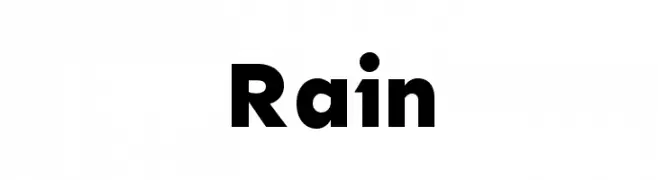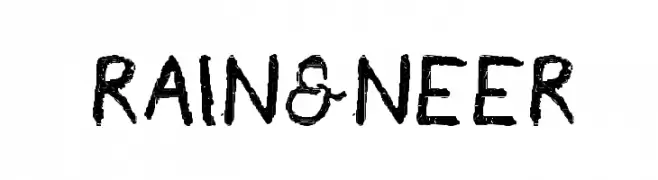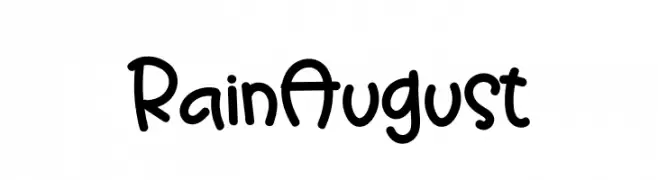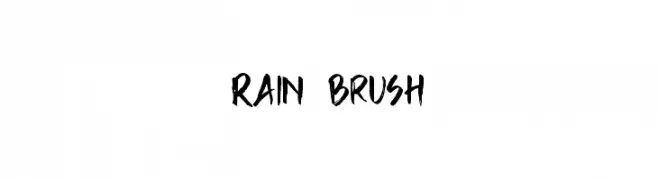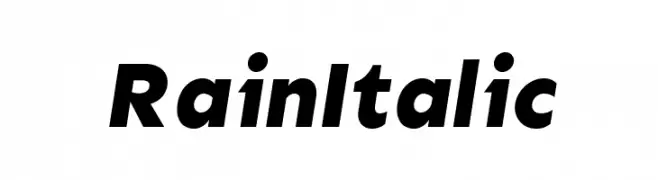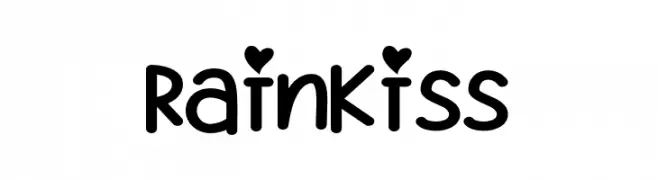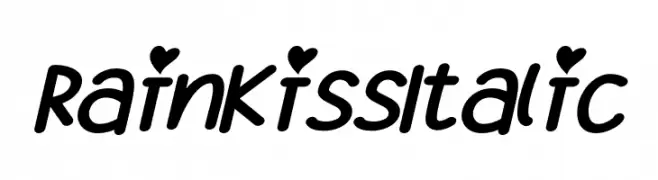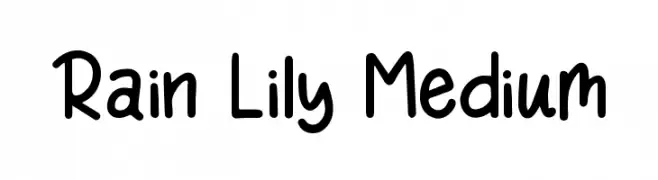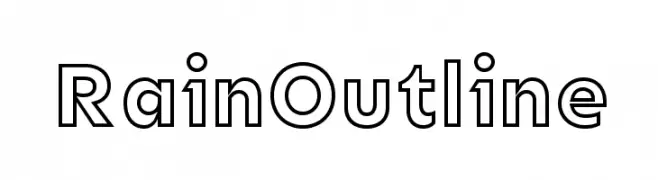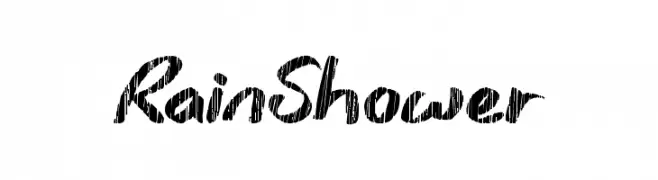
A bold, geometric font with strong, uniform letterforms.
A classic serif font with elegant, rounded terminals and high contrast strokes.
A bold, hand-drawn font with a textured, rustic appearance.
A playful, hand-drawn font with rounded, bold characters.
A bold, brush-style font with dynamic and expressive strokes.
A playful and whimsical script font with a handwritten style.
A playful and whimsical script font with smooth, flowing curves.
A playful and elegant script font with flowing, cursive design.
A bold, italic font with strong, slanted letterforms for a dynamic and modern look.
A playful, rounded font with whimsical, bubbly characters.
A playful, italic font with smooth curves and whimsical details.
A bold, cursive font with elegant loops and a handwritten style.
Playful, rounded sans-serif with a handwritten style.
A modern, geometric sans-serif font with an outline style for bold visual impact.
A modern, italicized outline font with a sleek and dynamic appearance.
A bold, playful handwritten font with rounded characters and a lively style.
A bold, angular font with a calligraphic, handwritten style.
A rugged, hand-drawn font with a textured, distressed appearance.
A playful, bold font with rounded, bubble-like characters and a whimsical style.
A playful, bold font with rounded, bubble-like characters.
A dynamic, elegant script-style font with bold, slanted uppercase letters.
A playful, decorative font with bold, textured characters featuring lines and dots.
A bold, tall, and narrow sans-serif font with a modern and impactful style.
A decorative font with rainbow-like arches formed by parallel lines.
A playful, bold outline font with a cartoonish, hand-drawn style.
A bold, playful font with rounded edges and a bubbly, retro style.
A bold, playful, and italicized font with rounded strokes and close spacing.
A bold, outlined, and slightly italic font with a playful, hand-drawn style.
A delicate and flowing script font with elegant, cursive letterforms.
A bold, flowing script font with elegant curves and high contrast.
A playful, handwritten font with tall, narrow letters and a whimsical style.
A graceful, cursive script font with elegant, flowing strokes.
A bold, playful sans-serif with a hand-drawn, festive style.